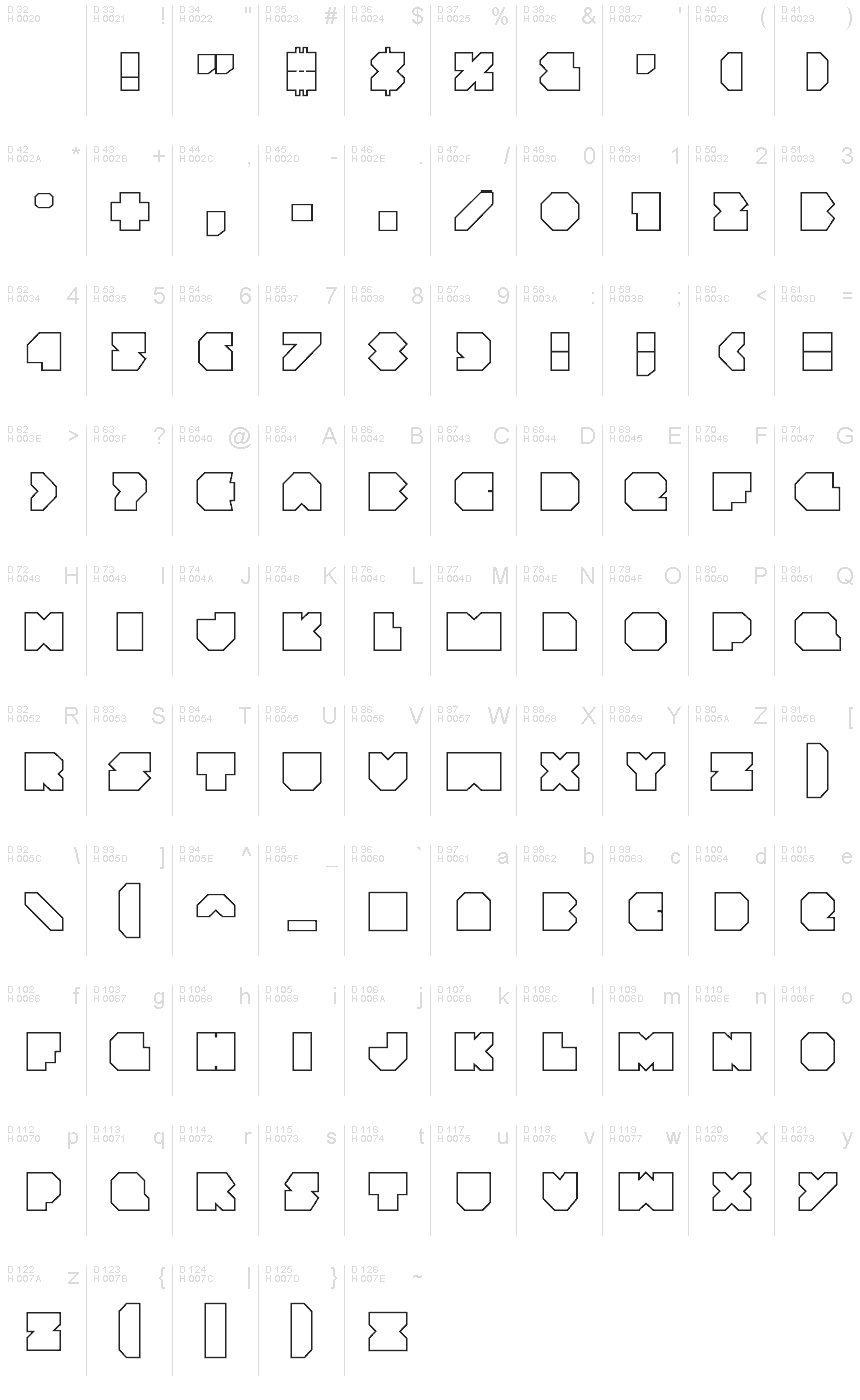
VX Rocket Outline
VX Rocket Outline font by Iconian Fonts is a bold, expanded display typeface blending outlined techno aesthetics with a futuristic, geometric style. Its angular and tech-inspired design evokes a modern and industrial feel that's cutting-edge and innovative.